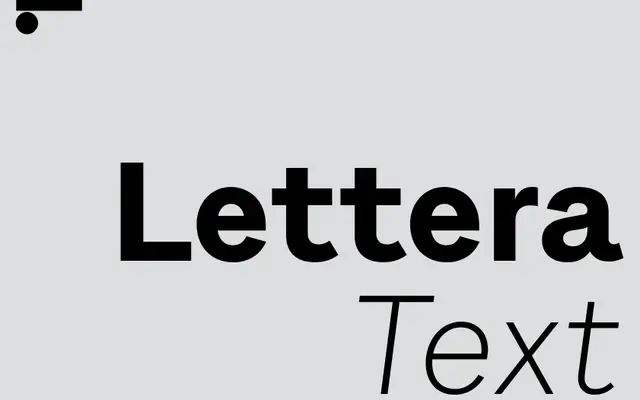
LL Lettera Text
Lineto · Josef Müller-Brockmann
LL Lettera Text specimen from Lineto
A proportional text adaptation of Josef Müller-Brockmann's 1968 Olivetti typewriter typeface, redrawn by Lineto for contemporary typesetting.
Originally commissioned by Olivetti in 1968 for use with their golf ball typewriter, the source design was created by Swiss designer Josef Müller-Brockmann. LL Lettera Text is a full proportional reworking of the earlier monospaced version, translating its rational, constructed letterforms into a text family suitable for continuous reading. The result carries the spare, functional character of mid-century Swiss typography without the mechanical constraints of fixed-width spacing.
Derived from a monospaced typewriter typeface commissioned by Olivetti in 1968, the proportional text adaptation retains the rational, constructed character of mid-century Swiss grotesques.